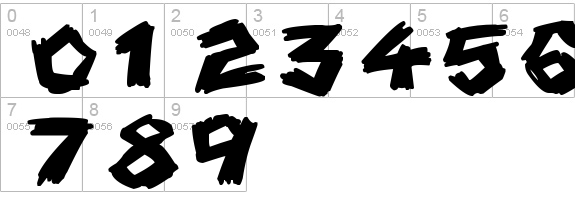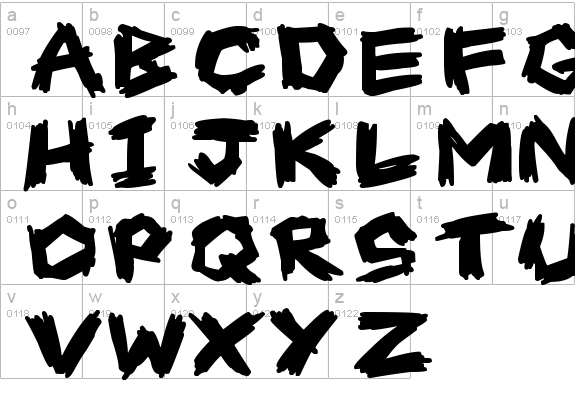
Scrapbook Scribblers Font Details
Scrapbook Scribblers font is a whimsical and charming typeface perfect for adding a touch of creativity and playfulness to your projects. With its hand-drawn feel and quirky design, this font is sure to bring a unique and personalized touch to any design you create. Whether you're working on scrapbooking projects, greeting cards, invitations, or any other creative endeavor, Scrapbook Scribblers font is the perfect choice to add a fun and artistic flair.